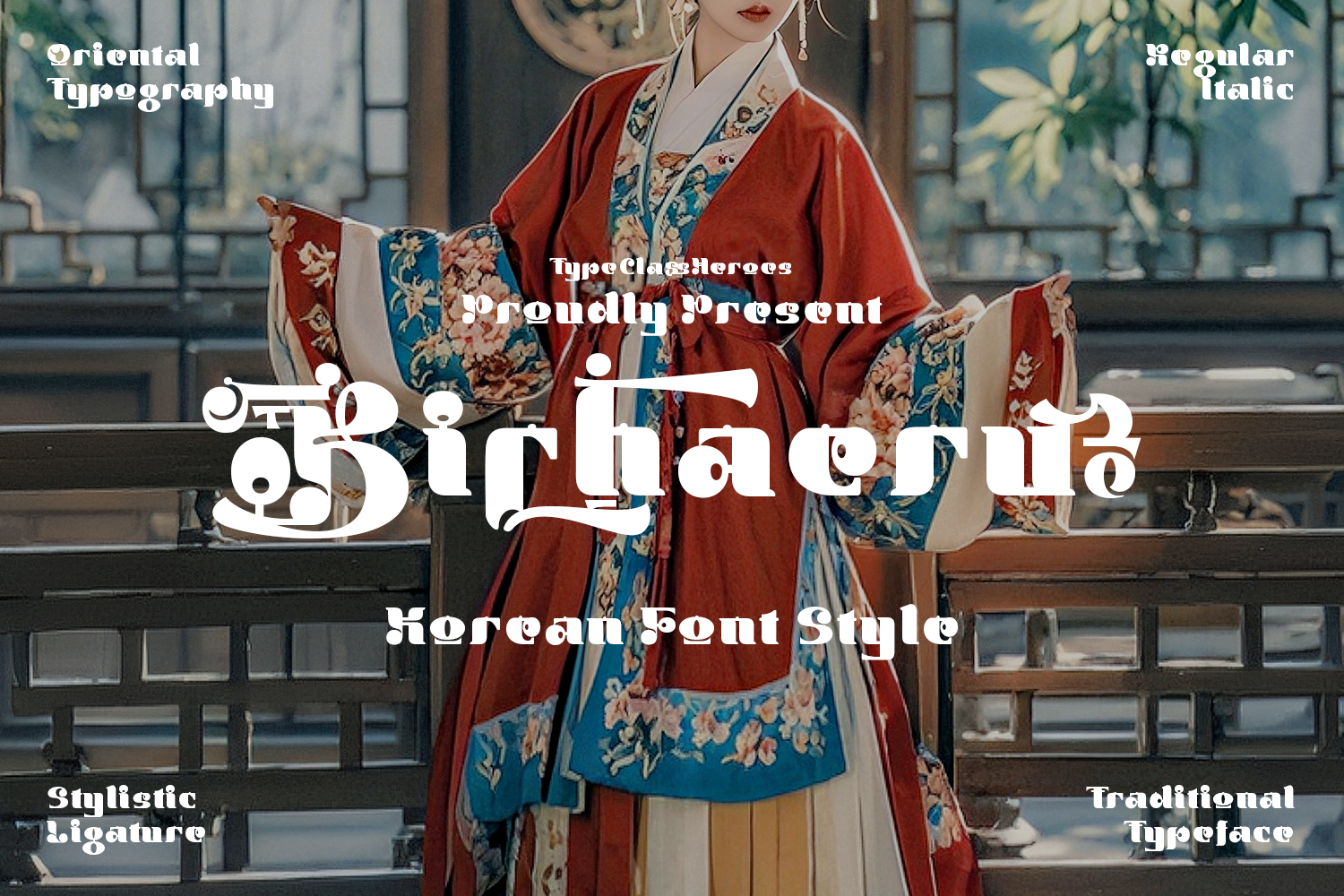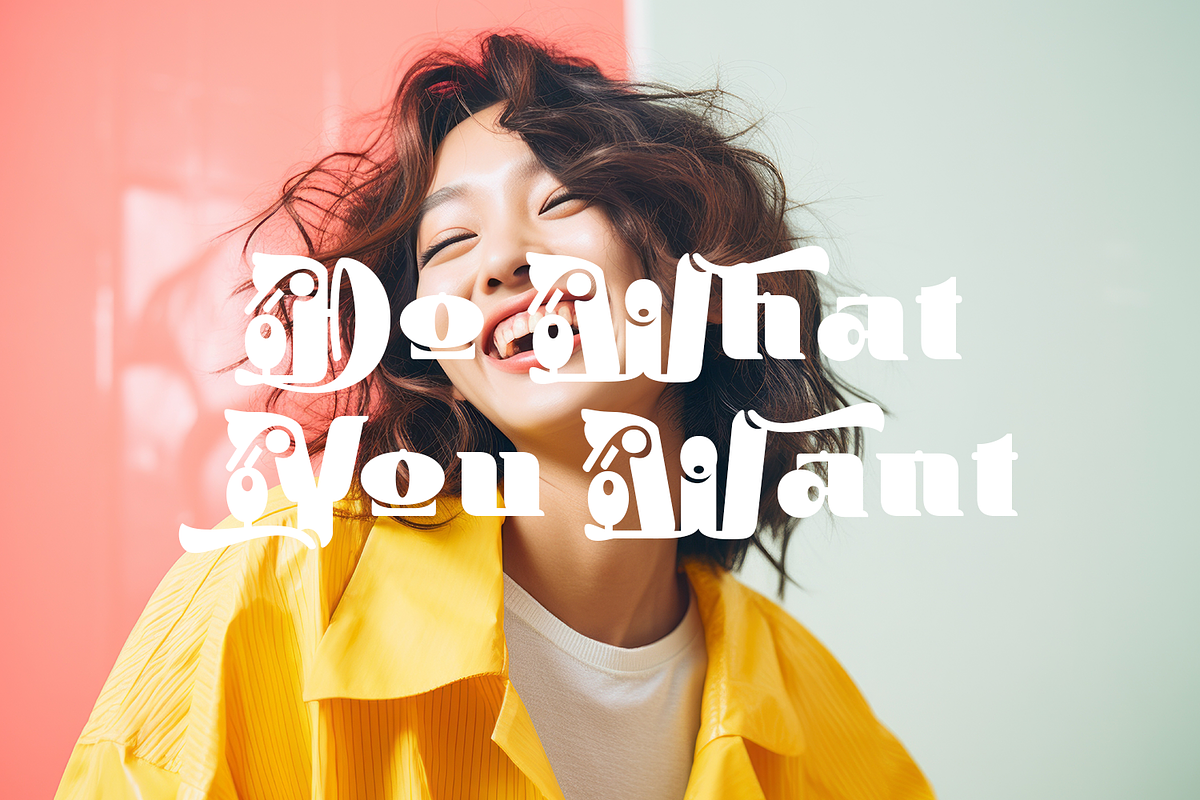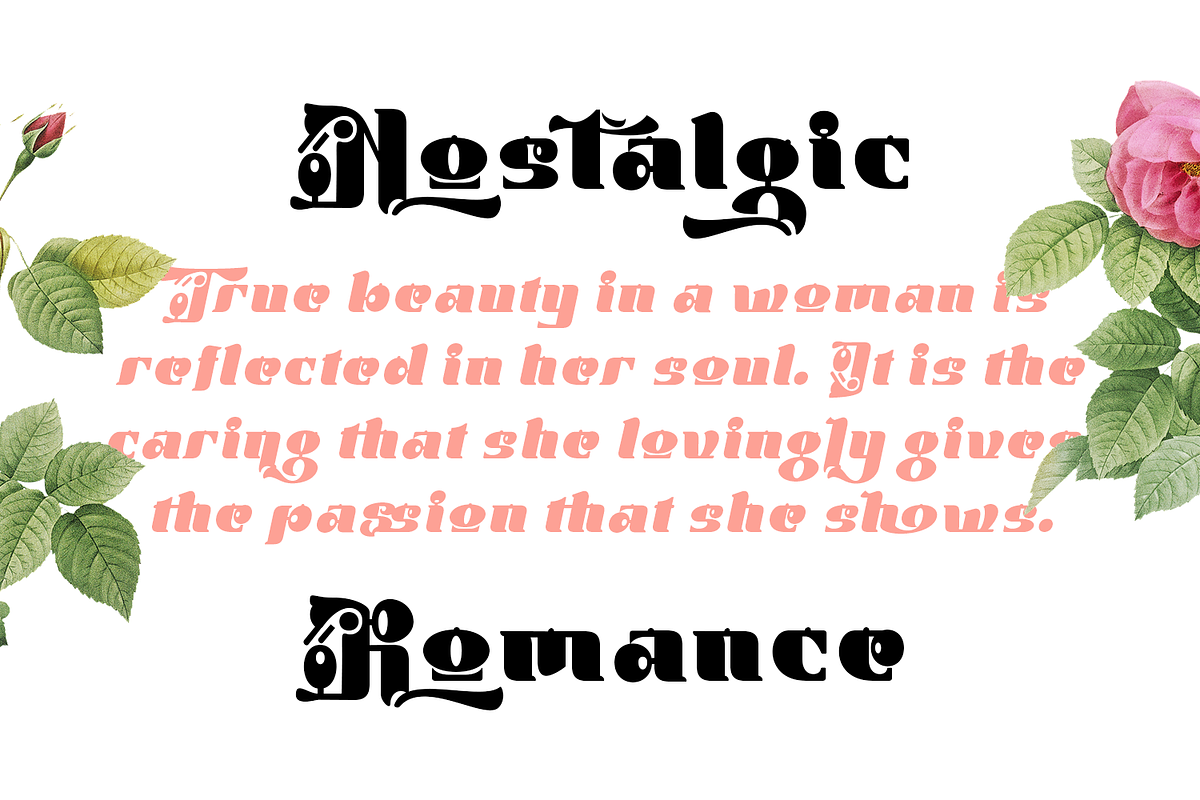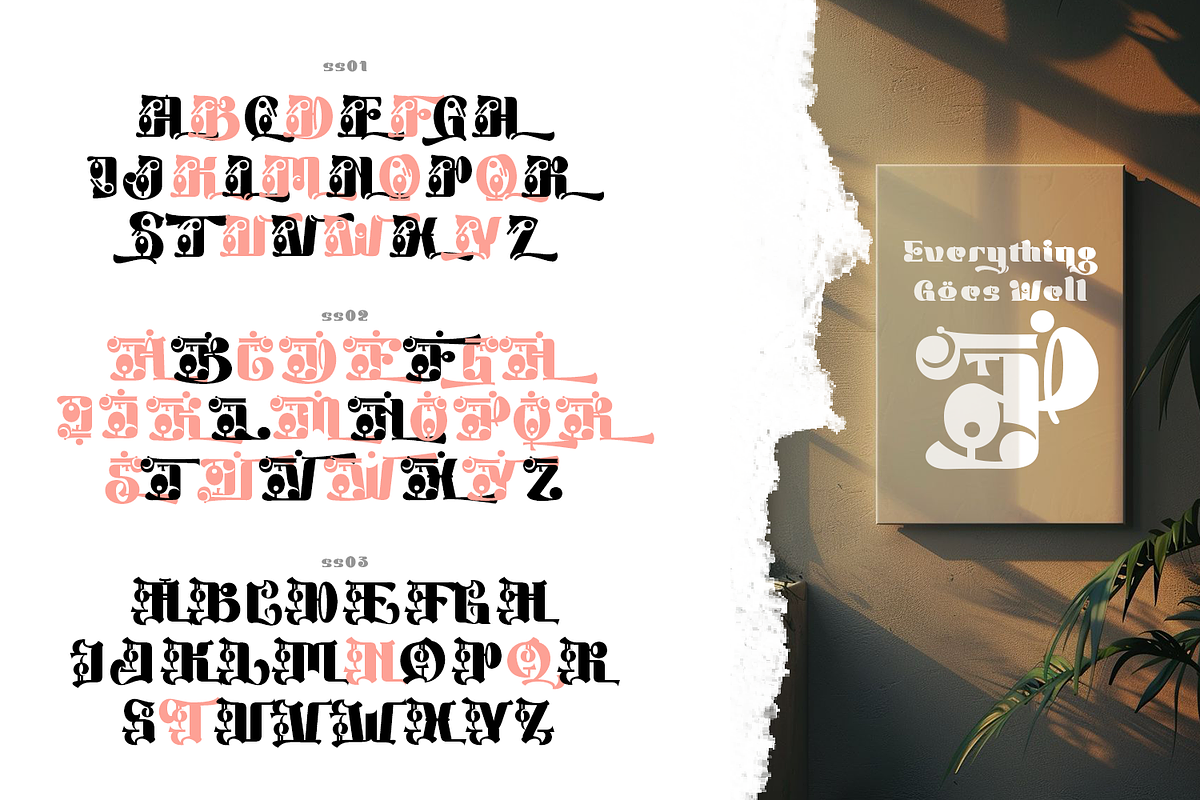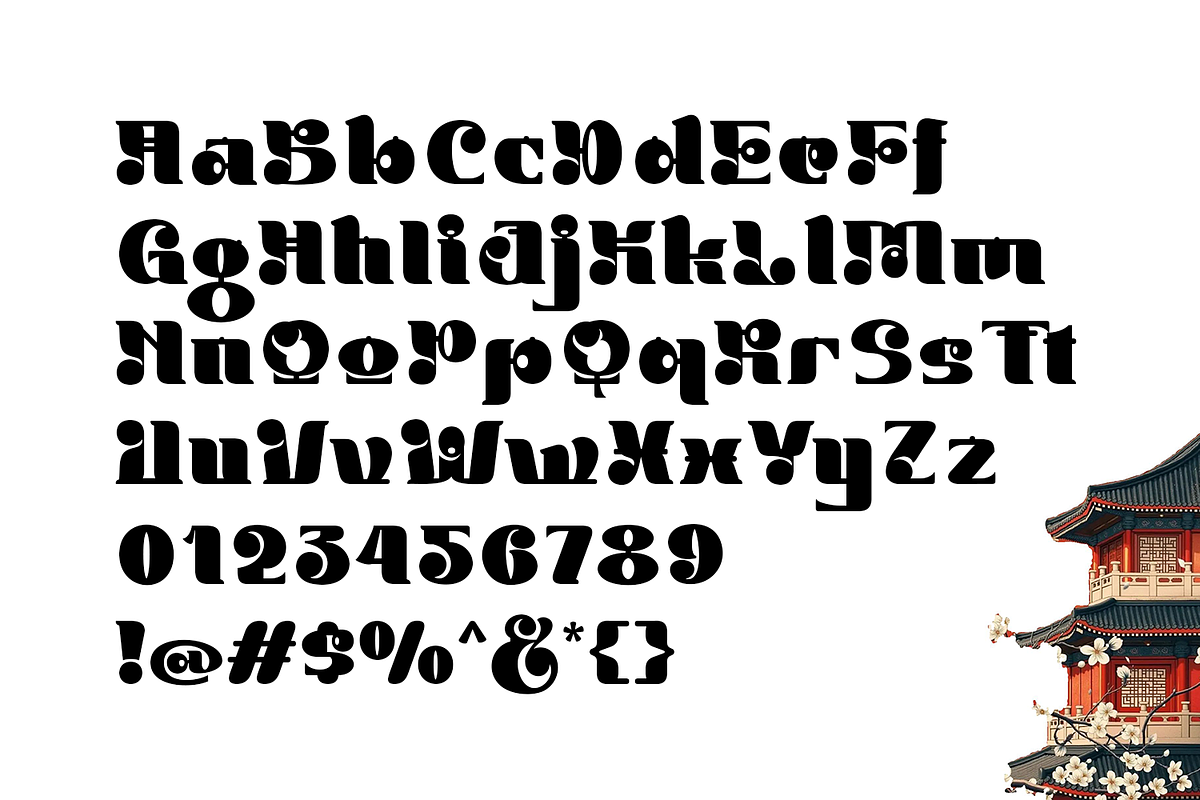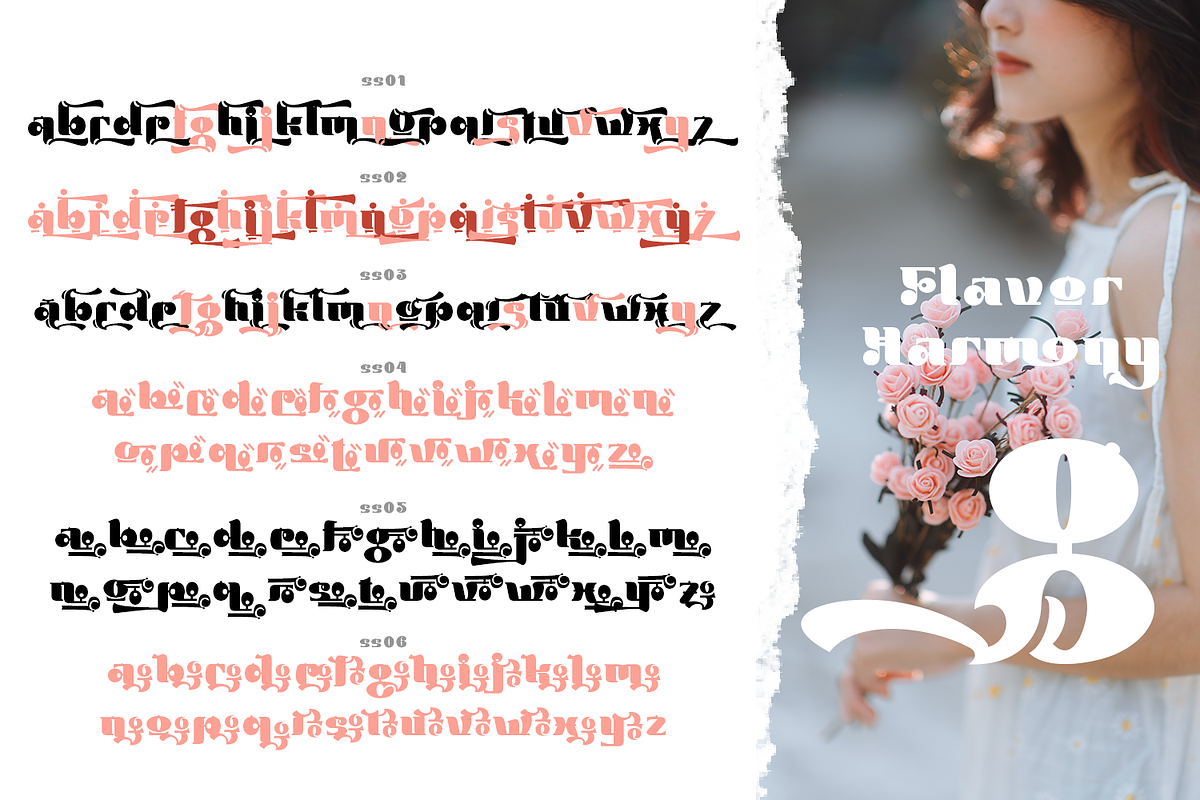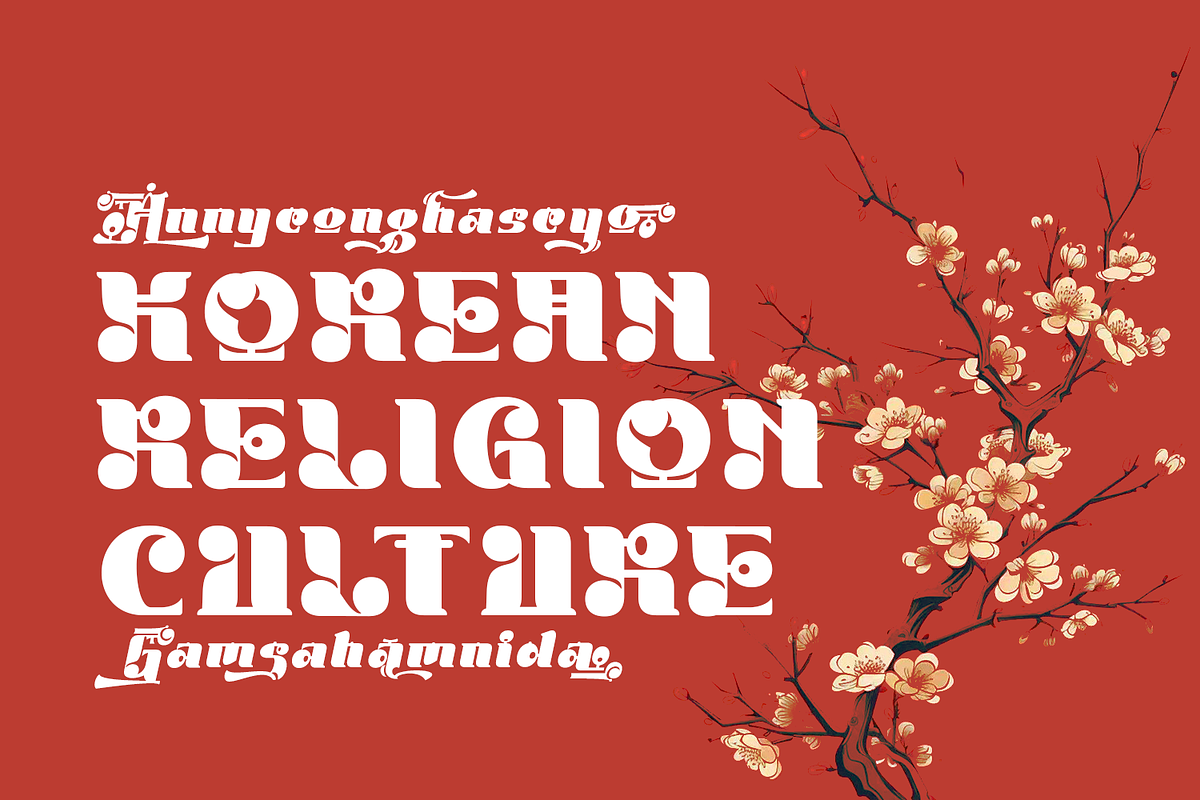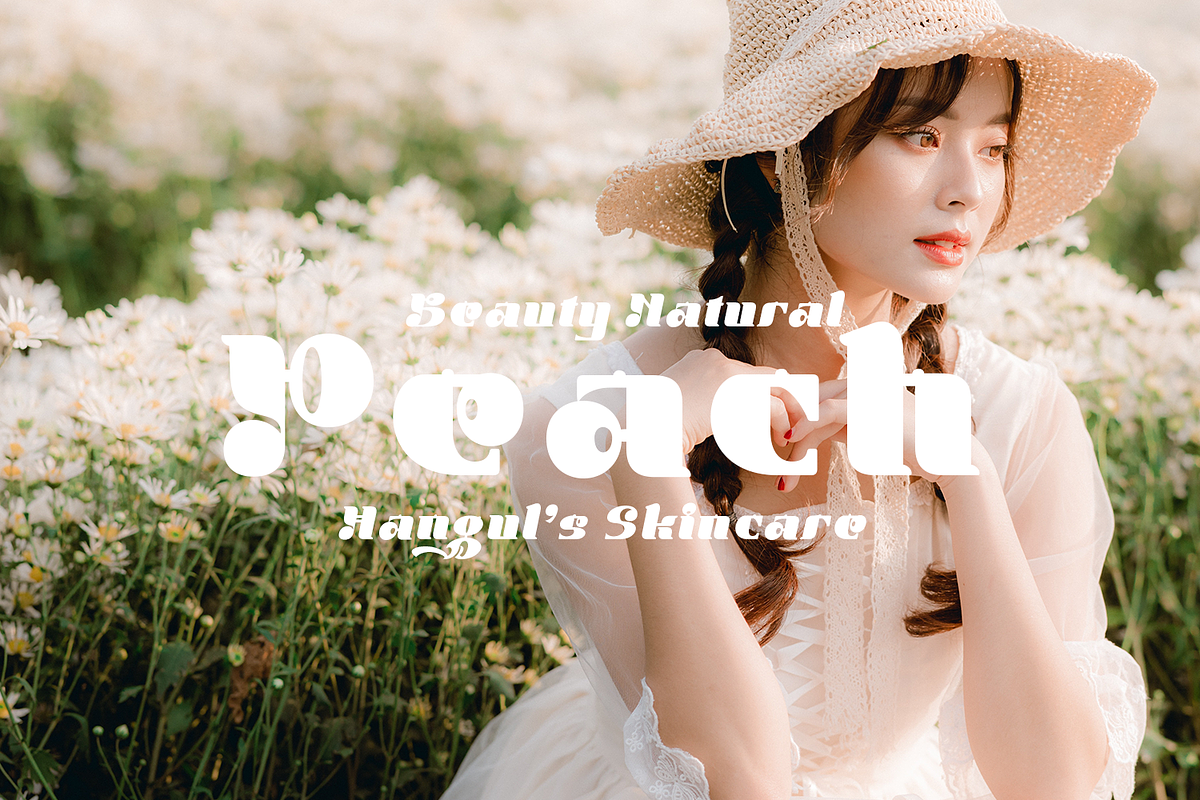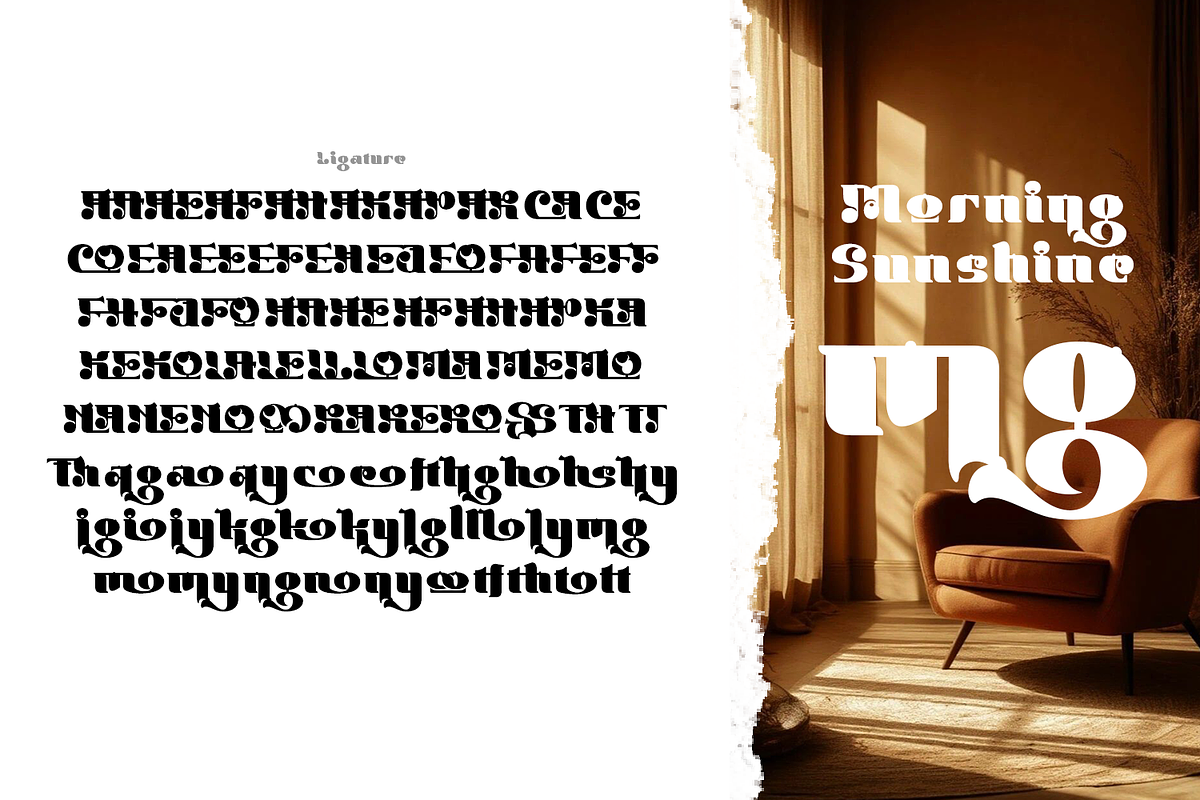
Bichaeru - Korean Typeface
Introducing, Bichaeru font has a strong and decorative visual character with a unique touch inspired by the Korean writing style (Hangul). This is evident in the letterforms, which tend to be bold, rounded, and feature small ornamental elements at each corner—similar to the neatly arranged yet artistic block structure of Korean letters.
The curves and additional details on each letter create a dynamic yet playful feel, while the compact proportions create a modern and expressive feel. Some parts of the letters also appear "connected" or accented with small dots and lines, reminiscent of the Korean typographic aesthetic, which often combines simplicity of form with decorative touches
This font is suitable for product branding that seeks a unique look and Korean or K-culture-themed designs. Poster titles, logos, or packaging that require strong visual appeal. The impression conveyed is modern, artistic, and slightly experimental, making it highly effective in attracting attention and conveying a distinct identity.